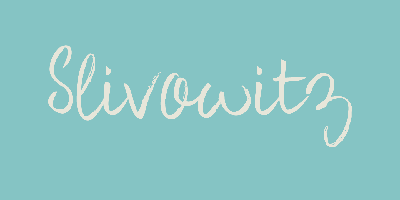
This enchanting typeface excels in fantasy book covers, magical event invitations, mystical brand identities, wizard-themed entertainment, fairy tale publications, enchanted restaurant menus, supernatural movie posters, and spellbinding communications. Its mystical character makes it perfect for projects requiring otherworldly charm and magical sophistication.
Magic Font generates excitement through its supernatural enchantment that captures the mesmerizing power of ancient spells and mystical wonder. The font's flowing curves and spell-casting letterforms create an atmosphere of magical transformation that resonates with audiences seeking extraordinary experiences and fantastical authenticity. Its mystically crafted character variations deliver spell-perfect readability while maintaining distinctive magical personality that reflects the eternal fascination with supernatural powers and the transformative potential of enchanted design elements.
The Magic Font family includes multiple enchantment variations such as regular, light, bold, sparkle, and potion styles. Each family member maintains the distinctive magical aesthetic while offering different levels of supernatural sophistication for various mystical applications. This enchanted collection allows designers to create spellbinding compositions that celebrate the full spectrum of magical experiences from gentle fairy dust touches to powerful wizard proclamations.
The Magic Font Free Download offers designers access to premium magical typography that brings authentic supernatural charm to any project. Its enchanting character and mystical appeal make it ideal for creating memorable fantasy brands and engaging magical communications that cast spells on audiences. Whether developing entertainment identities, designing fantasy materials, or crafting magical marketing campaigns, this font provides the supernatural authenticity and enchanted elegance essential for connecting with audiences who believe in magic, embrace fantasy worlds, and seek the transformative power of mystical experiences.